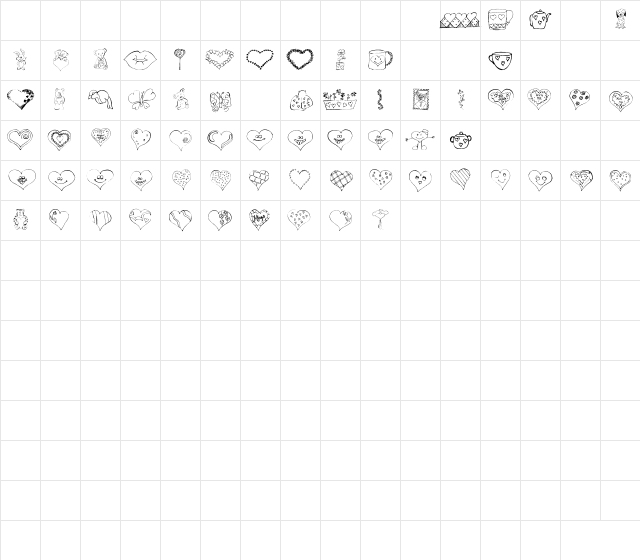
LSValentineDoodles Regular
Foundry: High-Logic
Designer: High-Logic - Erwin Denissen
Design Context for LSValentineDoodles
LSValentineDoodles is a composed and adaptable typeface that performs quietly and consistently across a wide range of design contexts.